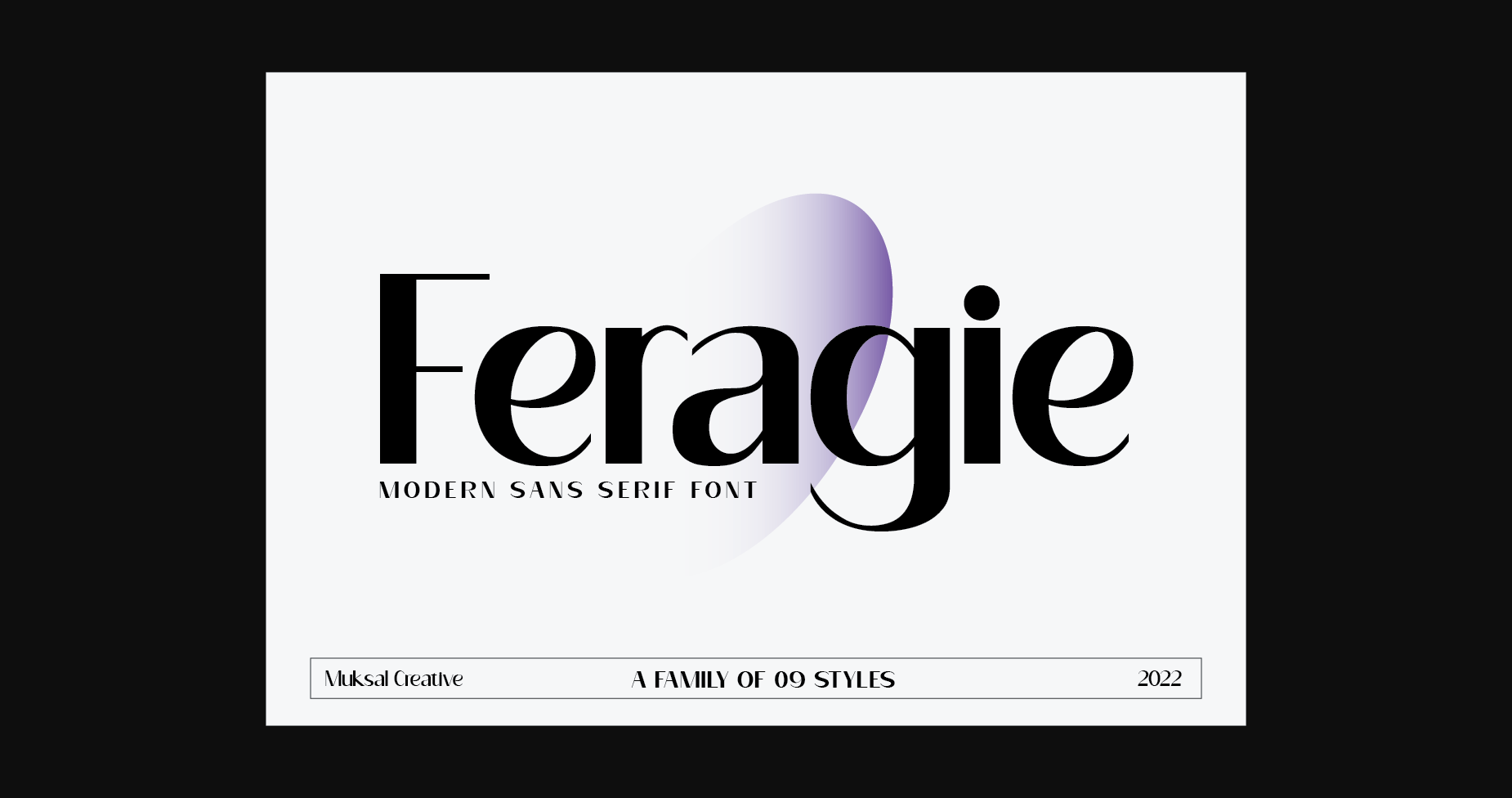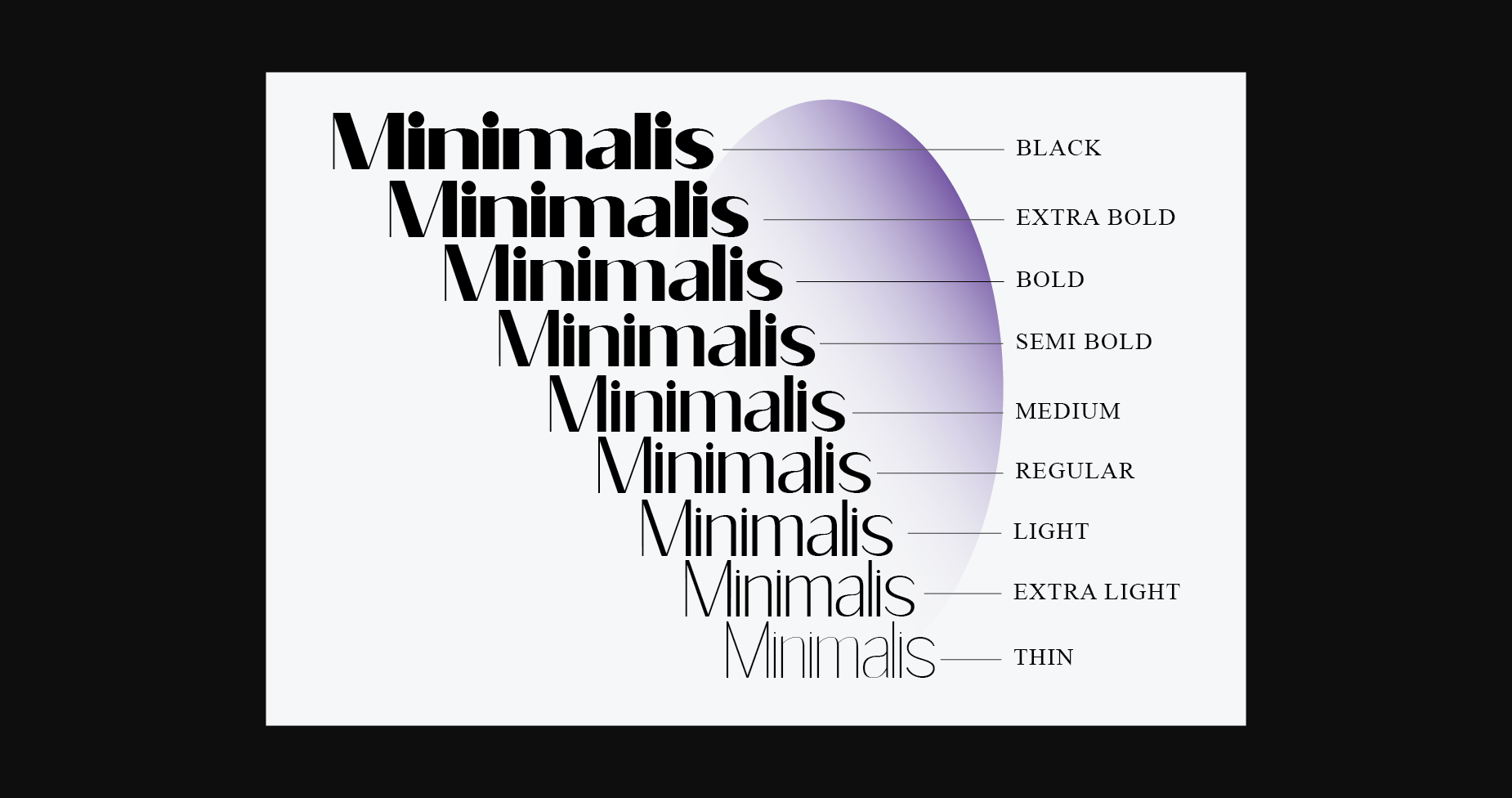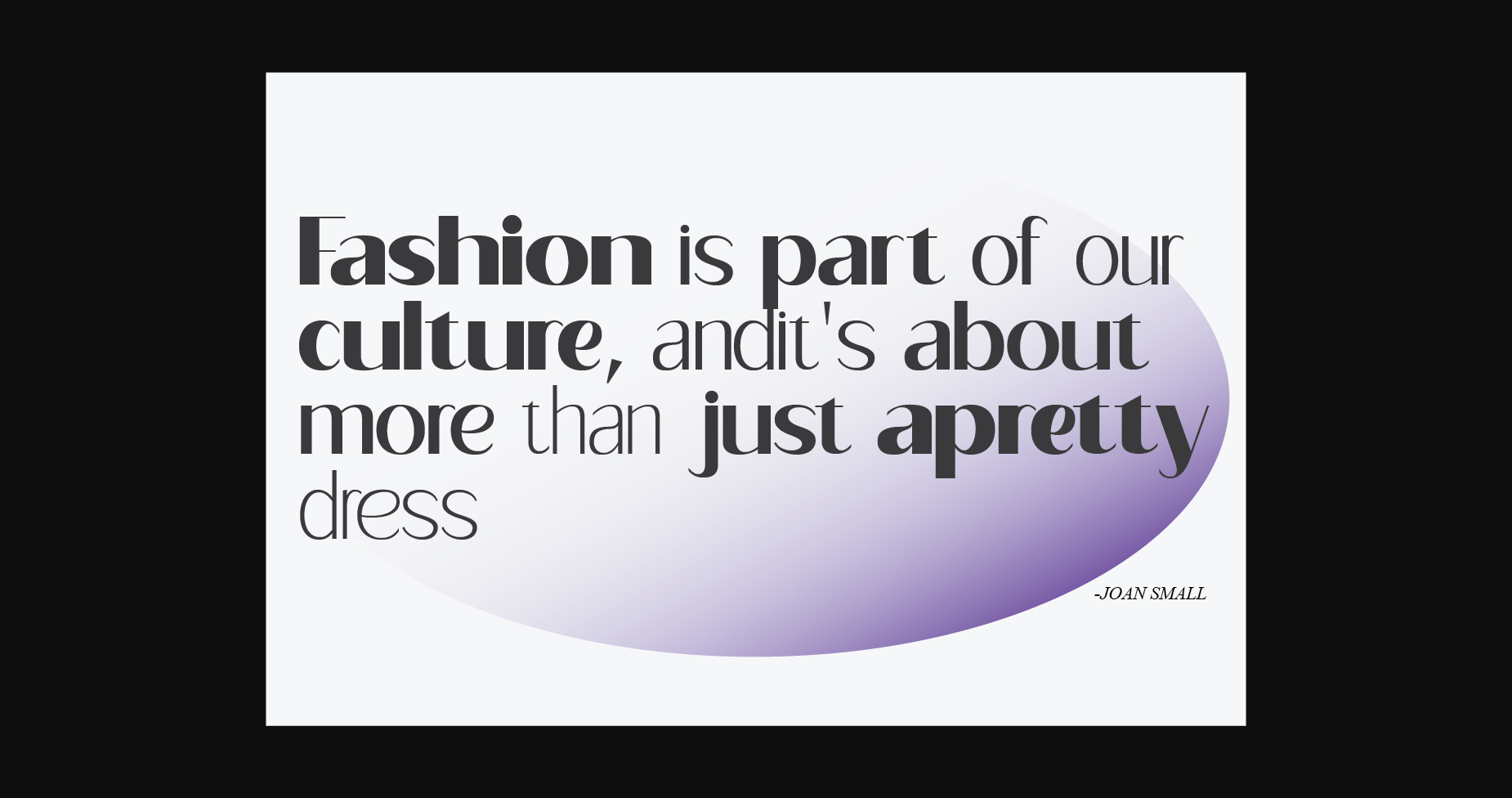
About Feragie Font
Feragie is a unique and modern family of sans-serif fonts. Feragie has 9 styles, starting from the small thin to the largest black. This typeface is versatile and can be used successfully in magazines, posters, branding, websites, and various other creations.